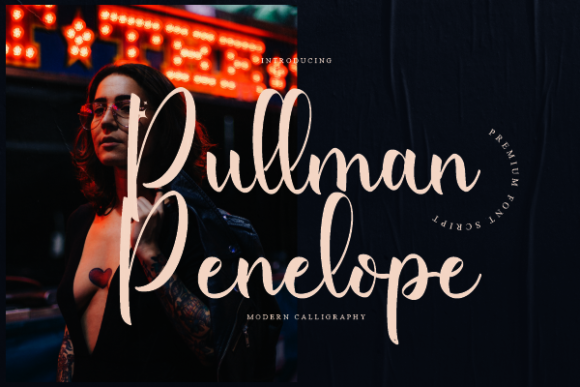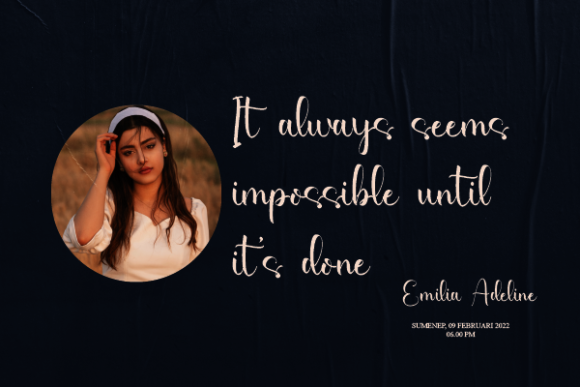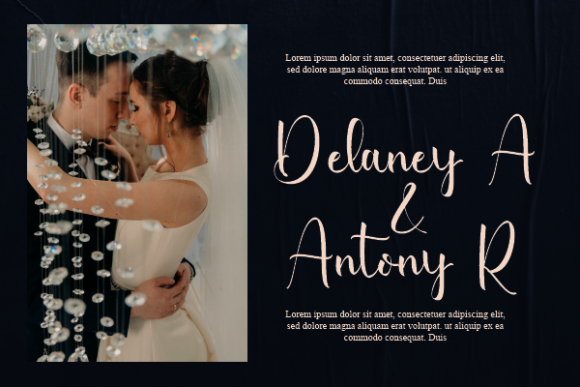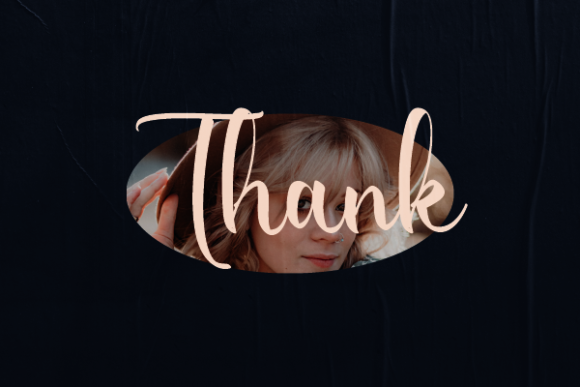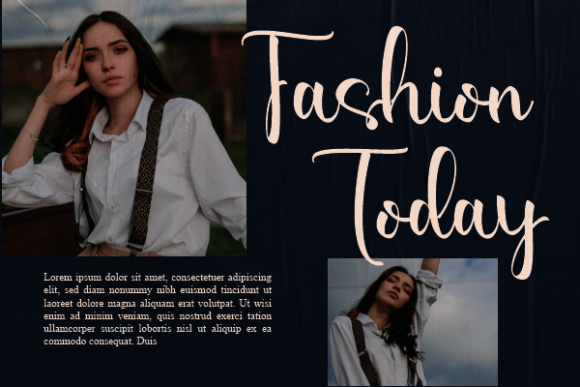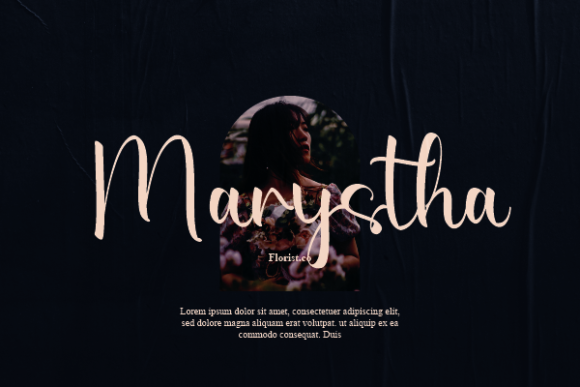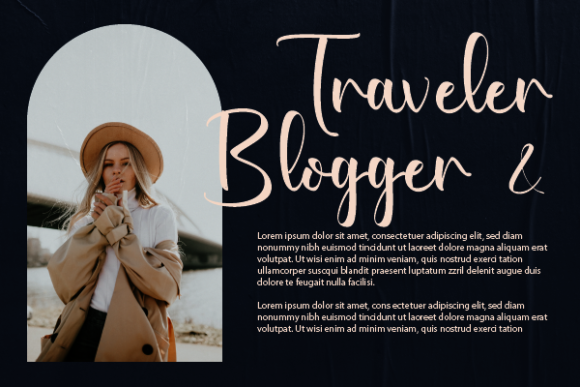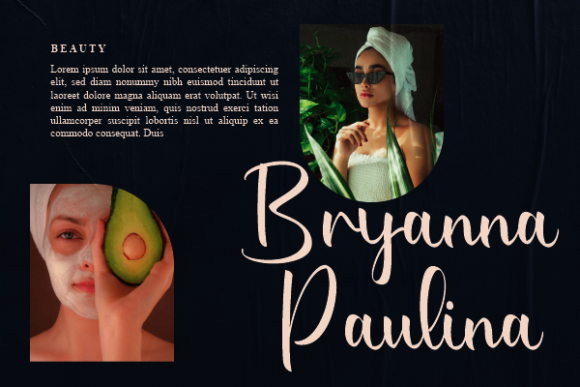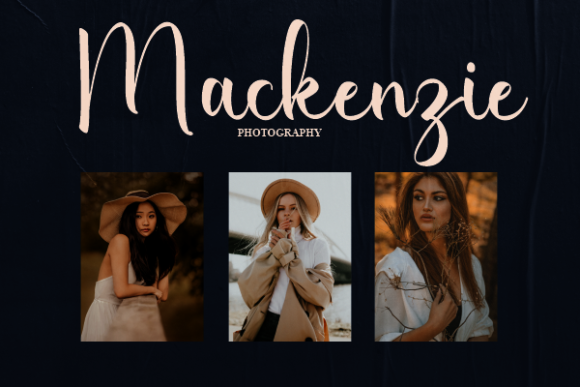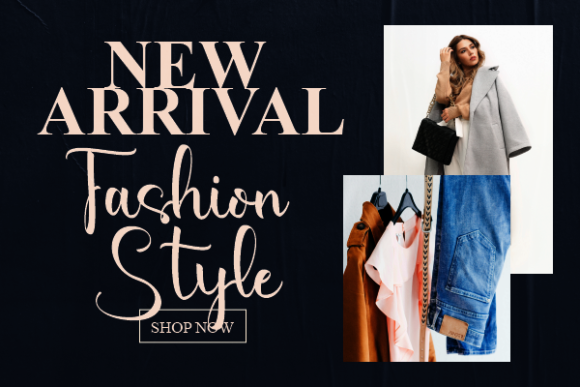
Pullman Penelope Font
About Pullman Penelope Font
Pullman Penelope font is a masterpiece of handwritten elegance, expertly crafted to captivate and inspire. Its impeccable design strikes a perfect balance between classic calligraphic elements and a modern, fresh vibe, making it a font that truly stands out and elevates any project it graces.
The sweeping curves and graceful lines of Pullman Penelope font evoke a sense of timeless beauty, reminiscent of the artistry found in traditional calligraphy. Every stroke is meticulously designed to exude a sense of sophistication and refinement, making it a natural fit for projects that demand a touch of elegance.
With its contemporary twist, Pullman Penelope font brings a breath of fresh air to the world of handwritten fonts. The thoughtful fusion of classic and modern elements gives it a unique character that is versatile and adaptable. From wedding invitations that seek to capture the essence of romance, to branding materials that aim to make a bold statement, this font rises to the occasion.
The intricate details and fine craftsmanship of Pullman Penelope font shine through, allowing it to effortlessly convey a sense of luxury and exclusivity. Imagine using it for high-end product packaging, where its elegant appearance adds value and prestige to the contents within.
Pullman Penelope font is not just a font—it’s a creative tool that empowers you to bring your projects to new heights. Its extensive character set and features, including ligatures and swashes, offer endless possibilities for customization. This allows you to infuse your designs with a personalized touch and create something truly exceptional.
Whether it’s logos, business cards, quotes, or editorial layouts, Pullman Penelope font’s versatility makes it a reliable choice for a wide range of design needs. Its ability to seamlessly transition from bold and impactful to subtle and romantic ensures that it complements your creative vision, no matter the context.
As you fall in love with Pullman Penelope font, you’ll find yourself drawn to its alluring charm and exquisite craftsmanship. It’s a font that transcends trends and time, making it a timeless addition to your design toolkit. Allow it to be the driving force behind your creative endeavors, and watch as your projects reach new heights of beauty and sophistication.